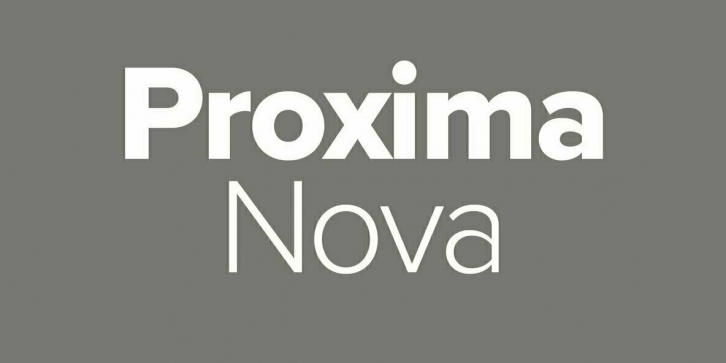
If you're a designer, you've probably heard of the Proxima Nova font family, and for good reason. Designed by famed typographer, Mark Simonson, Proxima Nova has become one of the most popular typefaces in the modern era. So what makes Proxima Nova so special?
An Expanded Collection for Enhanced Design Flexibility & Functionality
The Proxima Nova font family is a complete reworking of Proxima Sans (1994). What started with just six fonts has now expanded to 48 fonts, all full-featured OpenType with three variations in width for the maximum flexibility in design. Proxima Nova comes in Normal, Condensed, and Extra Condensed, each consisting of 16 fonts, eight weights with matching italics.
A Mix of Humanistic Proportions & Geometric Features
Stylistically, Proxima Nova straddles the gap between typefaces like Futura and Akzidenz Grotesk, making it the perfect choice for those wanting something in-between. What results is a hybrid of humanistic proportions with a somewhat geometric appearance, making it the perfect choice for modern and professional designs.
Aside from its elegant and modern appearance, what sets Proxima Nova apart is its incredible feature set.
Features include:
Looking for a Futura or Gotham Alternative? Needing an elegant typeface that's perfect for modern design? Wanting to add a touch of professionalism and elegance to your work? Proxima Nova is the font family for you. With Proxima Nova's elegance and modernity, it's perfect for creating typographic design that's visually attractive and easy to read.